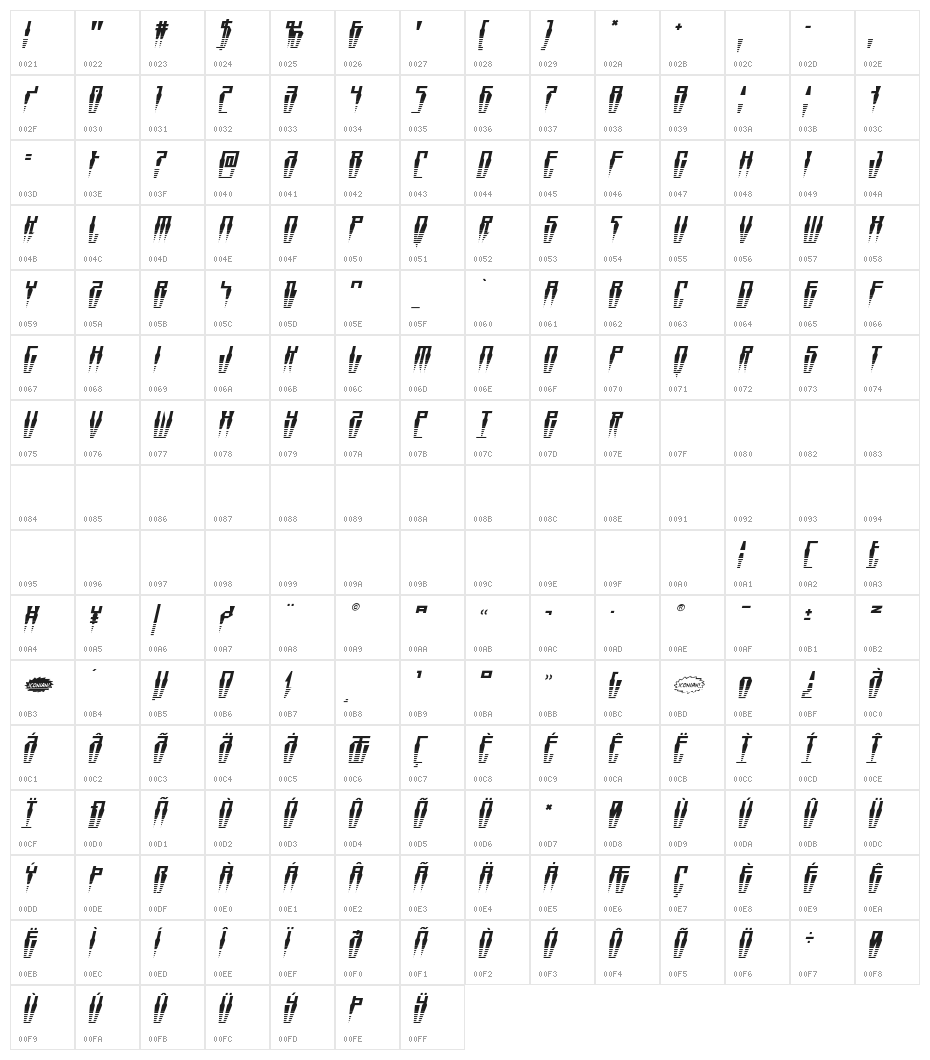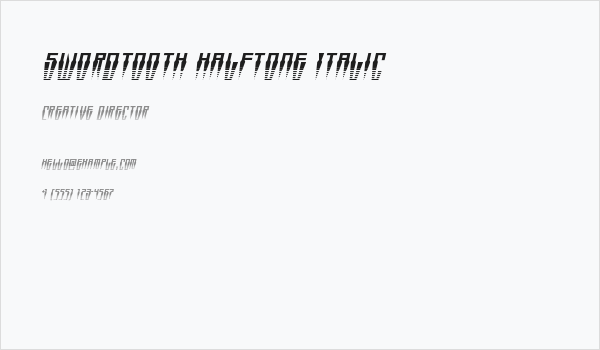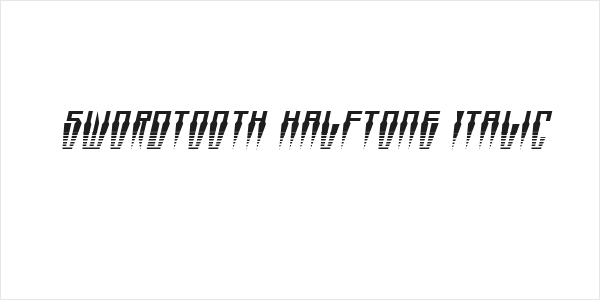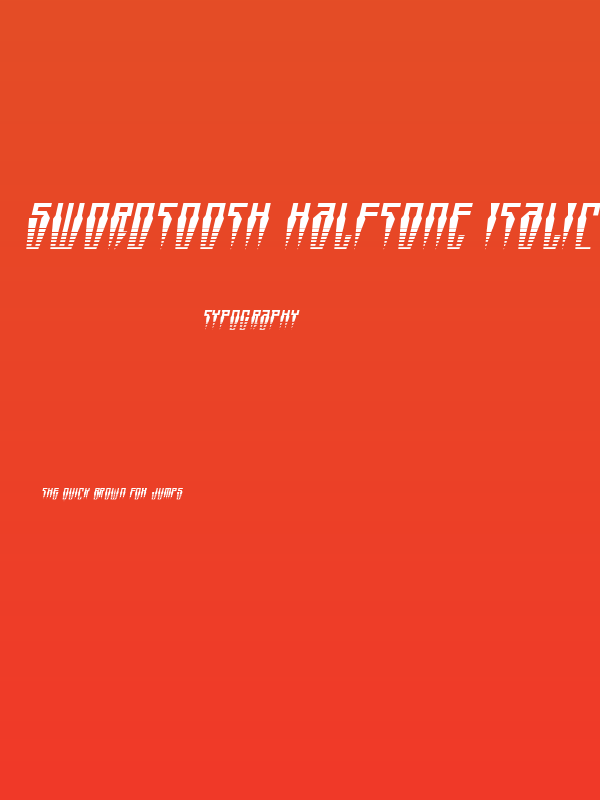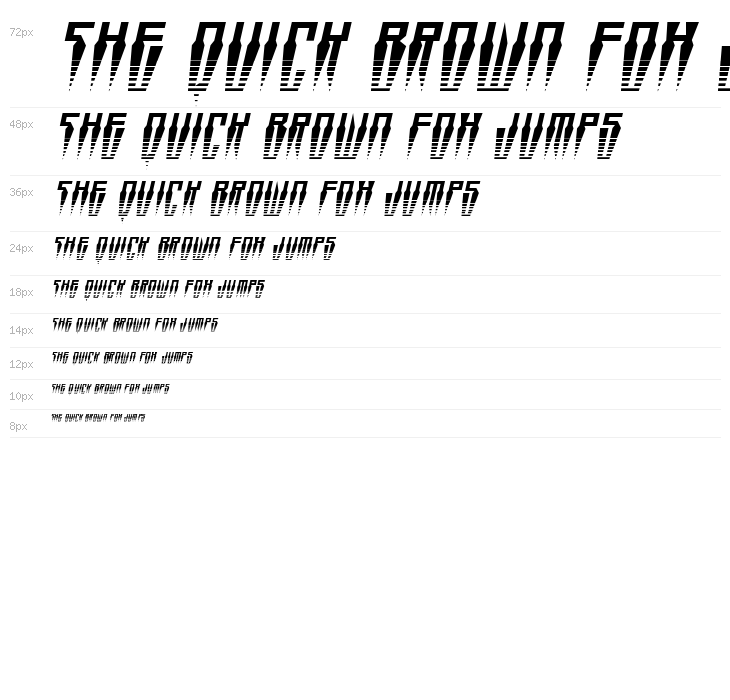
Swordtooth Halftone Italic Font
Swordtooth Halftone Italic Description
This font features a dynamic and edgy design with a halftone effect that gives it a sense of movement and depth. The characters are italicized, adding a forward-leaning, energetic feel. Each letter is composed of bold, angular lines that taper into a series of horizontal stripes, creating a unique visual texture. The overall appearance is modern and futuristic, making it suitable for projects that require a bold and distinctive look. The font maintains a consistent style across uppercase, lowercase, numbers, and special characters, ensuring versatility in various design applications.
Overall StyleFuturistic, Modern
Proposed ProjectsIdeal for sci-fi themed posters, video game titles, edgy branding, and dynamic advertisements.